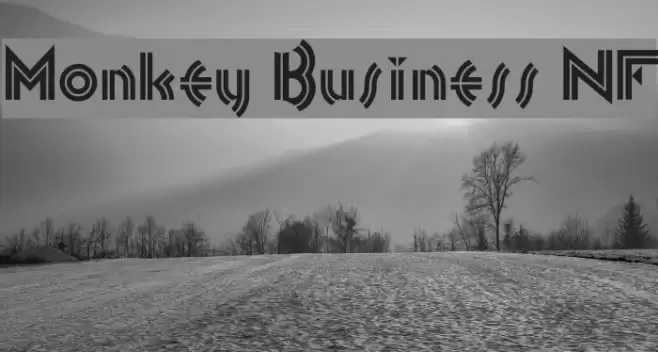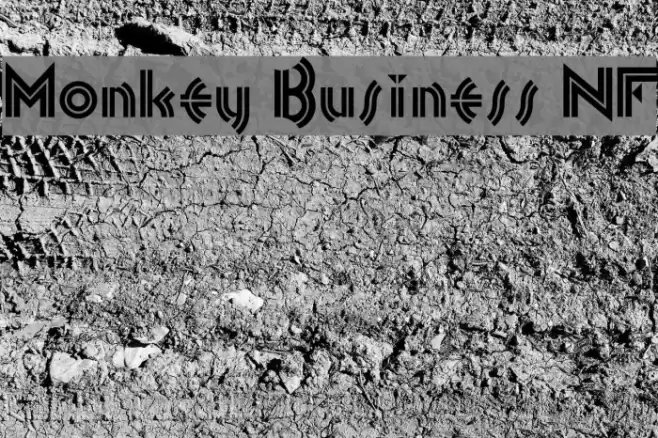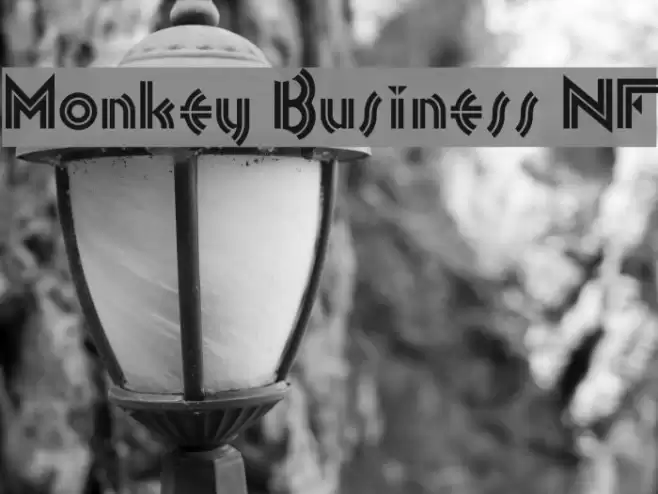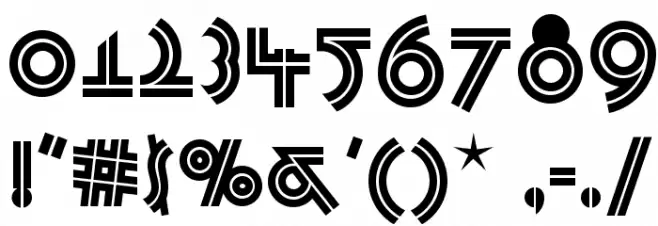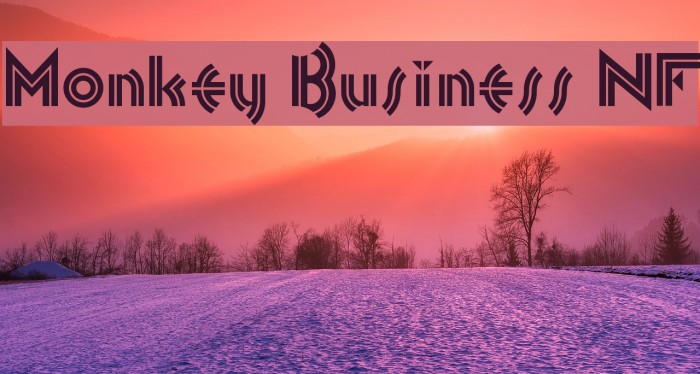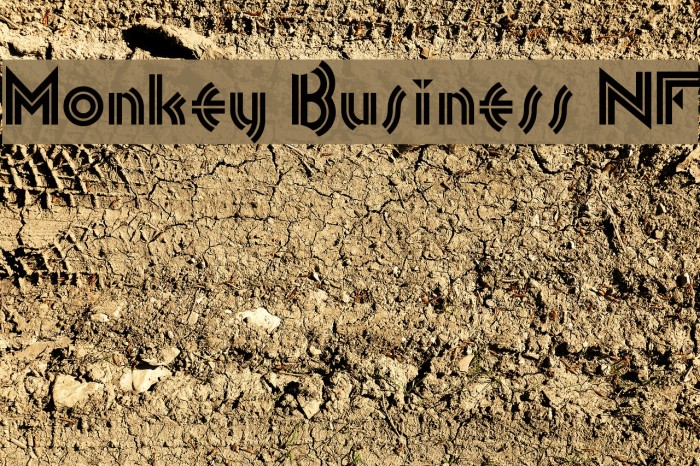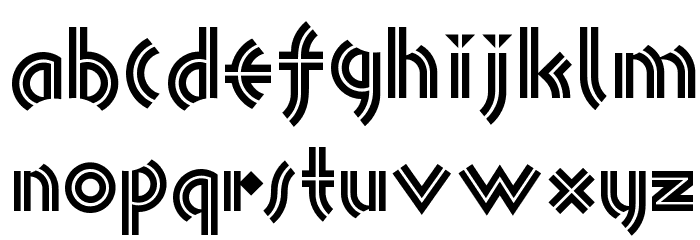
Monkey Business NF Font
Monkey Business NF Description
This font features a bold and geometric design with a distinct Art Deco influence. The characters are constructed with strong, angular lines and sharp edges, creating a sense of movement and dynamism. The uppercase letters are particularly striking, with unique embellishments and cutouts that add to the decorative appeal. The lowercase letters maintain the same geometric style, ensuring consistency across the typeface. Numbers and special characters are equally bold and stylized, making them stand out. This font's high contrast and unique character shapes make it ideal for eye-catching designs.
A bold, geometric font with Art Deco influences and high contrast from Outline fonts.
- Proposed Projects: Ideal for vintage-themed posters, logos, branding, and editorial design.
- Overall Style: Vintage